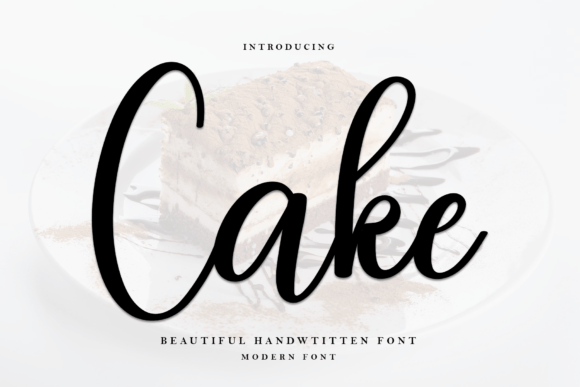
The Sweetest Addition to Your Design Toolbox
Have you ever been scribbling down a recipe for a new dessert, only to be inspired by the whimsical way the words looked on the page? That’s exactly the kind of creative moment that sparked the development of Cake Font – a delicate handwritten font designed to add a touch of sweetness to your designs.
Cake Font is perfect for writing letters, invitations, food product labels, and titles that need a unique, handwritten feel. Its versatility makes it a valuable addition to any designer’s toolbox, offering endless possibilities for creative expression.
With Cake Font, you can elevate your designs from ordinary to extraordinary, making it a must-have for designers looking to add a personal touch to their work.
Cake Font Key Features
- Font Family: Cake Font is a unique, hand-drawn font designed to resemble a mix of cake and icing.
- Unique Characteristics: The font’s hand-drawn design and intricate details make it perfect for adding a touch of whimsy and personality to designs.
Cake Font Review
Overall, Cake Font has some great qualities, but it also has some limitations that prevent it from being a top choice for designers. ✨
- Cake Font has a unique, playful style that’s perfect for adding a touch of whimsy to designs. The script-like lettering is both elegant and quirky, making it a great choice for food-related brands or creative companies.
- The font is highly legible, even at small sizes, making it suitable for a variety of applications, from packaging to signage.
- Cake Font comes in a range of weights and styles, giving designers plenty of flexibility when it comes to creating custom designs.
- One of the main drawbacks of Cake Font is its limited language support. While it covers many popular languages, it may not be suitable for designs that require complex language support.
- The font’s aesthetic is quite specific, which may limit its appeal to designers who prefer more neutral or timeless fonts.
- Cake Font can also feel a bit overused, especially in certain design contexts, which may make it harder to stand out.
Overall, Cake Font is a solid choice for designers who need a unique, playful font for specific projects. However, its limitations should be carefully considered before committing to it for larger-scale designs or projects that require more flexibility.
Tips for Getting the Most Out of Cake Font
To get the most out of Cake Font, try:
- Experimenting with different font sizes and colors to create a visually appealing effect.
- Combining Cake Font with other design elements to create a cohesive look.
- Using Cake Font to add a touch of whimsy and playfulness to your designs.
Cake Font is commonly used for:
- Wedding invitations and decorations.
- Party and event invitations.
- Food and dessert-themed designs.
Alternatives to Cake Font for Designers
Great Vibes is a beautiful, elegant script font that is perfect for creating a warm and inviting atmosphere in designs. It is ideal for use in wedding invitations, baby shower invitations, and other special occasion materials. Great Vibes is a great alternative to Cake Font as it has a similar whimsical feel, but with a more refined and sophisticated look.
Carolyna Pro is a modern, elegant script font that is perfect for creating a luxurious and high-end feel in designs. It is ideal for use in branding materials, advertising campaigns, and other high-end marketing materials. Carolyna Pro is a great alternative to Cake Font as it has a similar level of sophistication, but with a more modern and sleek look.